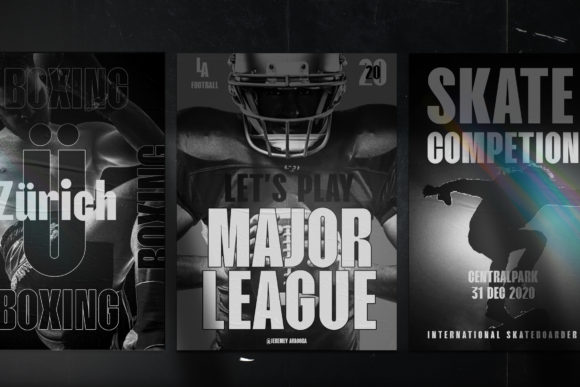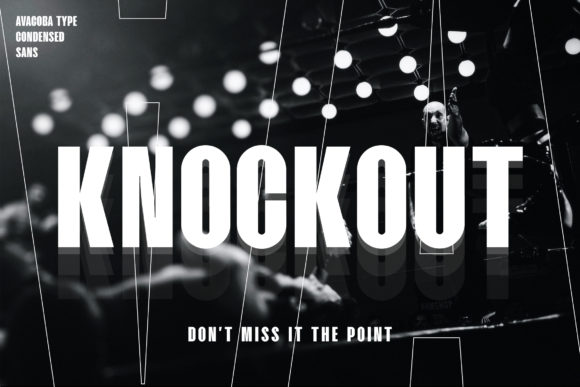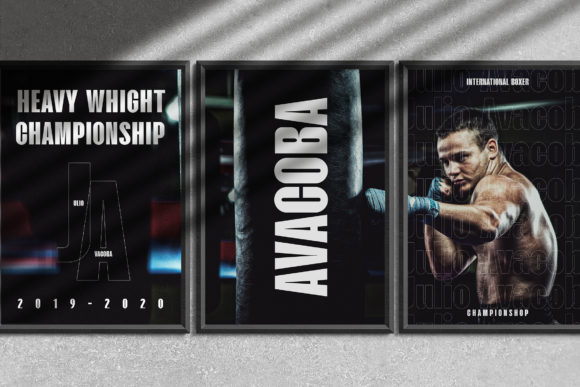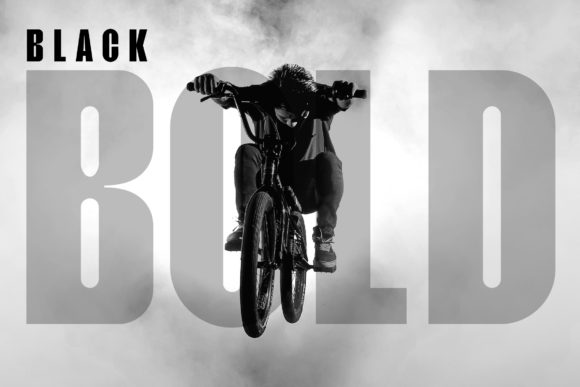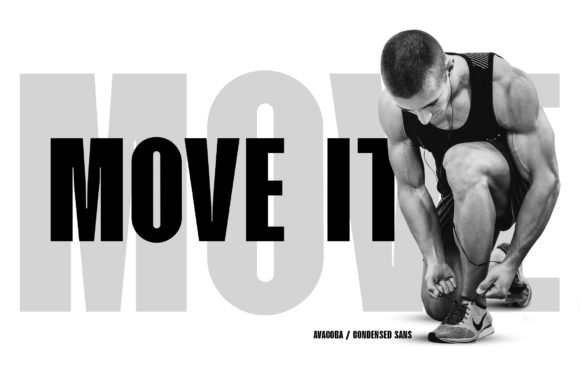
The Avaboca Font: A Bold Sans Serif Game-Changer for Your Creative Projects
An Honest Review of Avaboca
What I Love About Avaboca ✨
- ✅ Bold and eye-catching: Avaboca is perfect for making a statement in your designs. Its bold sans serif style demands attention and adds a touch of modernity to any project.
- ✅ Versatile: Avaboca can easily be matched to an incredibly large set of projects, from branding and advertising to packaging and digital media.
- ✅ Clean and legible: Despite its bold style, Avaboca remains clean and legible, making it perfect for use in a variety of contexts.
- ⚠️ Limited font weights: Avaboca is currently available in a limited number of font weights, which might not offer enough flexibility for some projects.
- ⚠️ No italic version: Unfortunately, Avaboca doesn’t come with an italic version, which might be a drawback for some designers.
The Backstory Behind Avaboca
Avaboca was designed with the goal of creating a bold and versatile sans serif font that could be used in a wide range of creative projects. The designer aimed to create a font that would be both modern and timeless, with a clean and legible style that’s perfect for use in branding, advertising, and more.
Q: What is Avaboca’s font style?
Avaboca is a bold sans serif font, perfect for making a statement in your designs.
Q: Is Avaboca available in different font weights?
Currently, Avaboca is available in a limited number of font weights. However, the designer may release additional weights in the future.
Q: Can I use Avaboca in digital media?
Yes, Avaboca is perfect for use in digital media, including websites, social media, and more. Its clean and legible style makes it easy to read on a variety of devices.